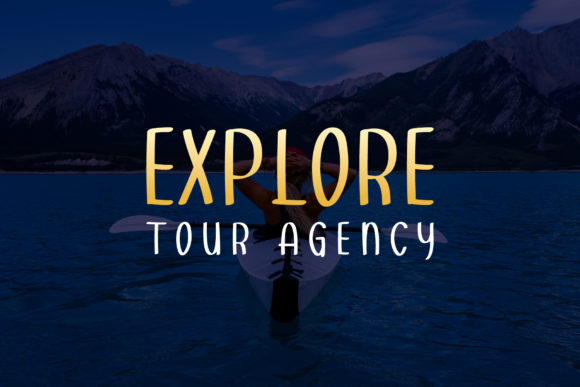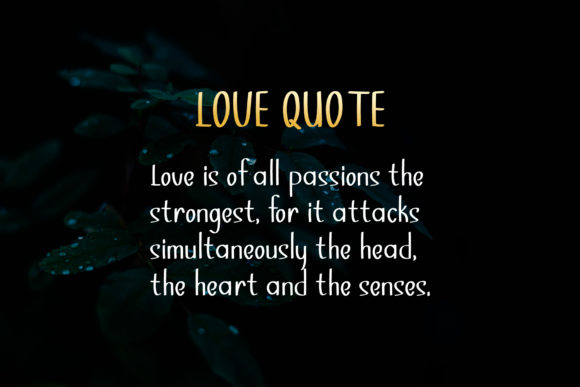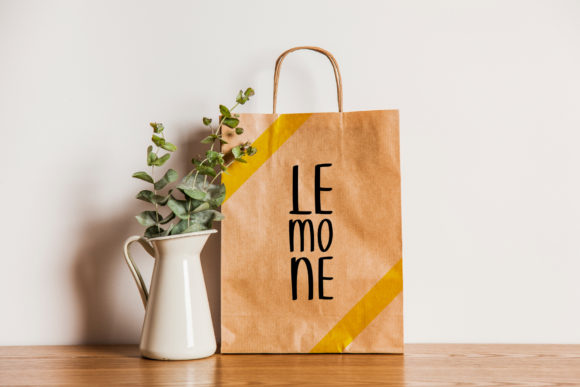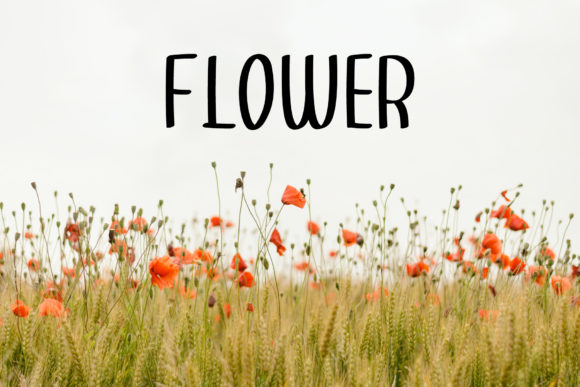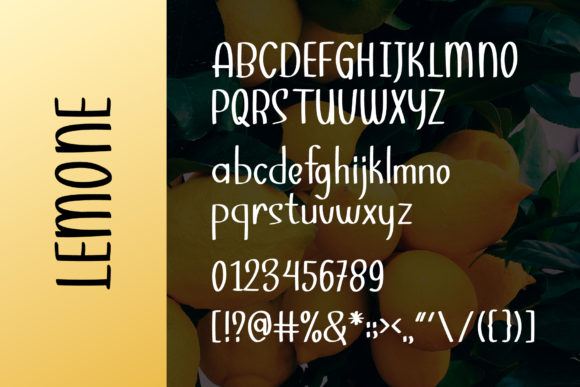
Introduction to Lemone Summer Font
Remember that one moment when you’re working on a creative project, and you just can’t find the right font to bring your vision to life? You browse through countless options, but nothing seems to fit the tone and style you’re aiming for. That’s exactly what happened to many designers when they discovered the Lemone Summer Font. This sweet and friendly handwritten font has been making waves in the design community, and for good reason.
With its natural and unique style, Lemone Summer Font is incredibly versatile and fitting for a wide range of designs. Whether you’re working on a free download project, creating a high-quality brochure, or developing a design resource for a client, this font is sure to elevate your work and leave a lasting impression. Its transparent background and high-quality design make it a valuable asset for any designer looking to add a personal touch to their creative projects.
- Lemone Summer Font is a high-quality design resource ideal for creative projects.
- Designed with a unique, playful style, perfect for adding a touch of whimsy to your design project.
Honest Review: Lemone Summer Font
I recently stumbled upon the Lemone Summer Font and I must say, it’s a lovely addition to any design project. This free download is perfect for those looking to add a touch of whimsy and playfulness to their creative project.
- ✨ High-quality design: The font is crisp and clear, making it perfect for digital use.
- ✨ Transparent background: This makes it easy to use as a standalone element or as part of a larger design.
- ✨ Versatile: The font is suitable for a wide range of design projects, from blog posts to social media graphics.
- ⚠️ Limited customization options: While the font is beautiful as is, it may not be suitable for projects that require extensive customization.
- ⚠️ May not be suitable for formal designs: The font’s playful nature may not be suitable for formal or professional designs.
Overall, I’m impressed with the Lemone Summer Font. It’s a great design resource for those looking to add a bit of fun and creativity to their projects. While it may have some limitations, it’s definitely worth considering for your next design project.
The Lemone Summer Font is perfect for any creative project, including:
- Flyers and posters
- Logos and branding